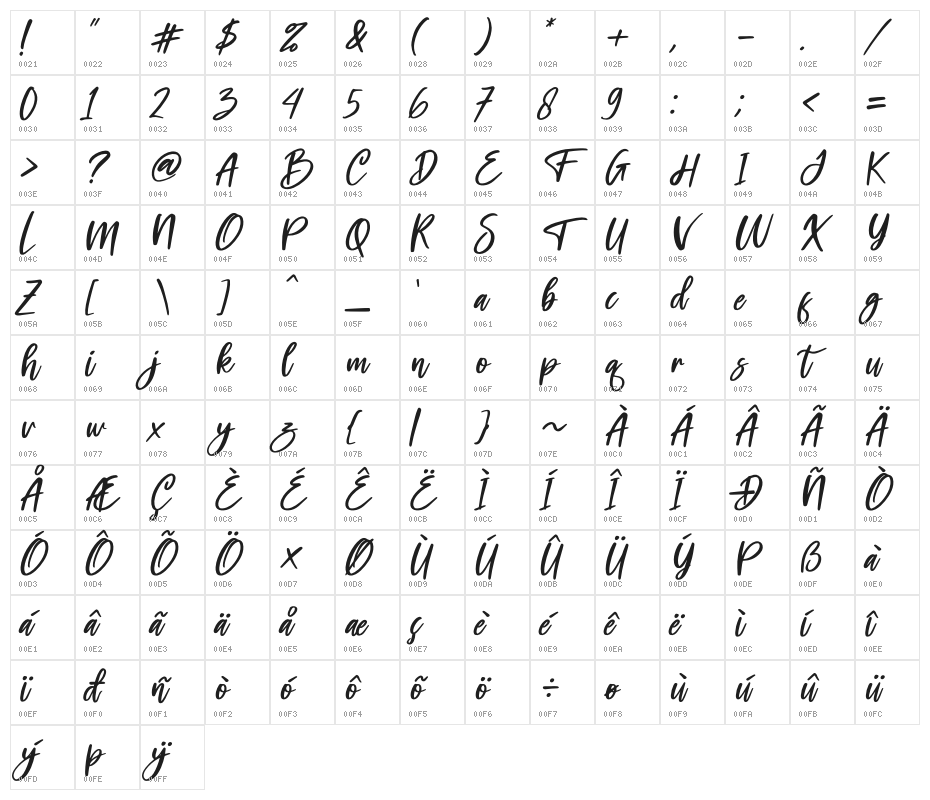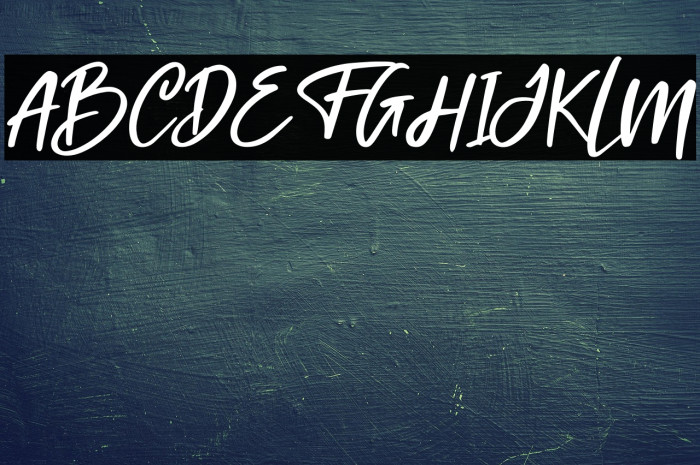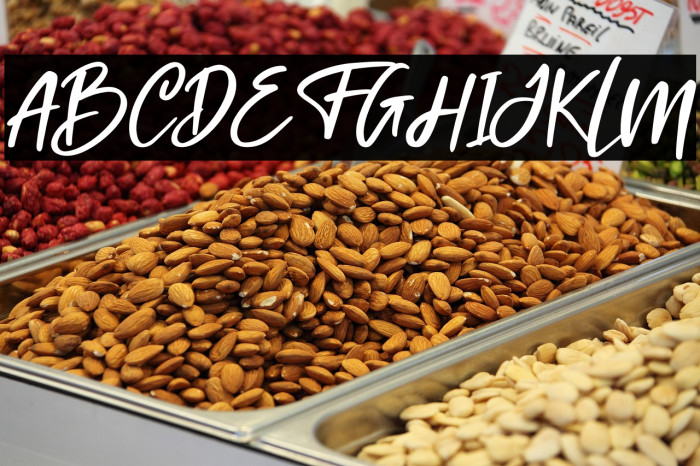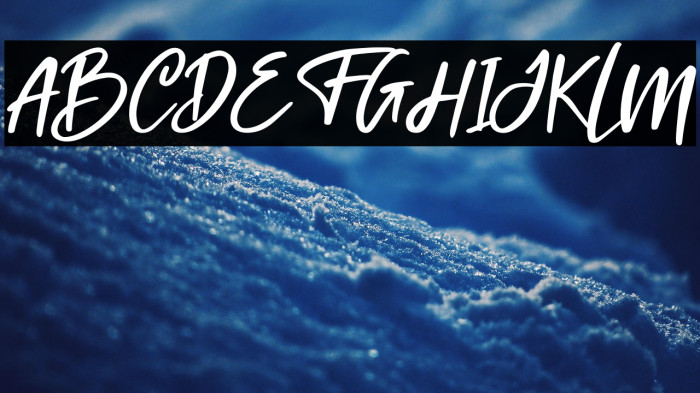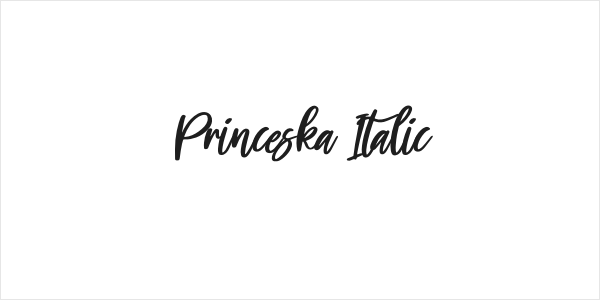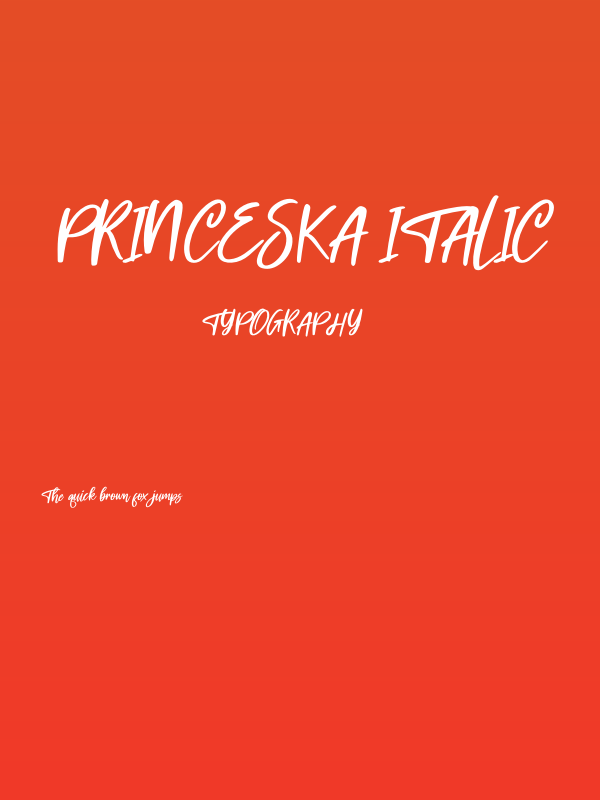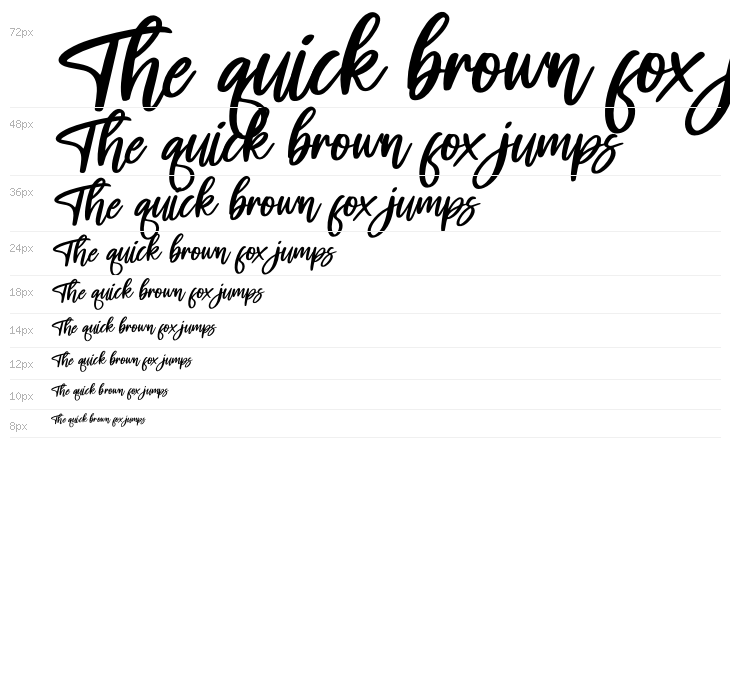
Princeska Italic Font
Princeska Italic Description
This font features a dynamic and flowing script style, characterized by its elegant and fluid strokes. The letters are connected in a cursive manner, giving it a handwritten appearance. The uppercase letters are bold and prominent, while the lowercase letters maintain a consistent flow, enhancing readability. The numerals and special characters are designed to match the overall aesthetic, with smooth curves and a cohesive style. This font exudes a sense of sophistication and creativity, making it suitable for various artistic and formal applications.
| Overall Style | Elegant, Artistic |